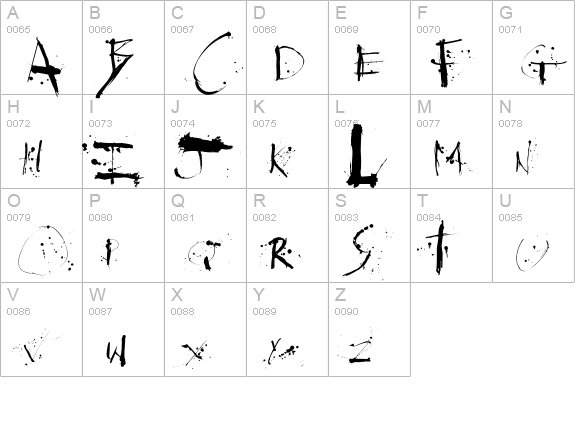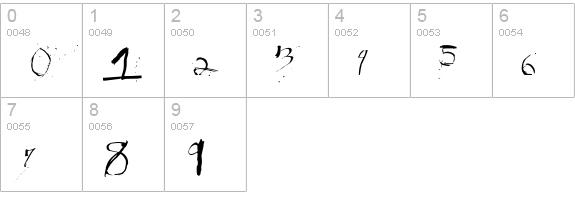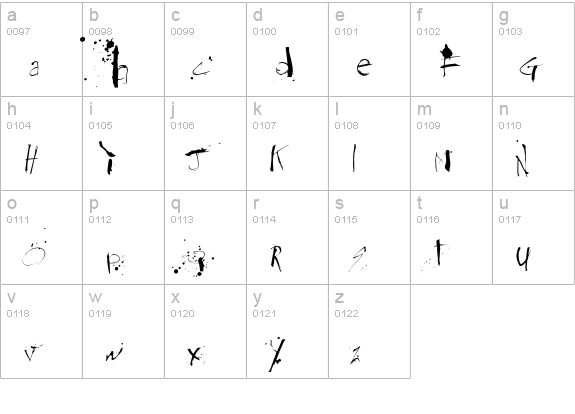
Steadmanesque Font Details
Introducing the captivating and utterly unique Steadmanesque font, a mesmerizing typeface that effortlessly blends artistry with individuality. Inspired by the iconic illustrations of the legendary Ralph Steadman, this font exudes a distinct sense of whimsy and rebellion, making it an ideal choice for those seeking to leave a lasting impression. Steadmanesque boasts an array of intriguingly irregular letterforms, with each character taking on a life of its own. Its organic curves and exaggerated strokes create a sense of dynamic movement that is both visually arresting and delightfully unpredictable. Whether used for display purposes or in smaller sizes, this font never fails to demand attention and evoke a sense of curiosity. One of the most remarkable aspects of Steadmanesque is its ability to effortlessly convey emotions and moods. From its playful and mischievous variations to its bold and confrontational styles, this font truly captures the essence of Steadman's iconic illustrations. It is the perfect choice for projects that require a touch of rebelliousness, creativity, and a dash of irreverent humor. And the best part? Steadmanesque is freely available to download at FontsMarket.com. This means that designers, artists, and creatives alike can easily access this remarkable font and unleash their imagination without any financial constraints. Embrace the freedom and endless possibilities that Steadmanesque offers, and watch as your designs come to life with its distinctive personality. So, whether you're designing a poster, creating a captivating book cover, or adding a touch of eccentricity to your branding, Steadmanesque is the font that will elevate your work to new heights. Download it today and let the rebellious spirit of Ralph Steadman ignite your imagination. Experience the freedom of expression with Steadmanesque, the font that dares to be different.